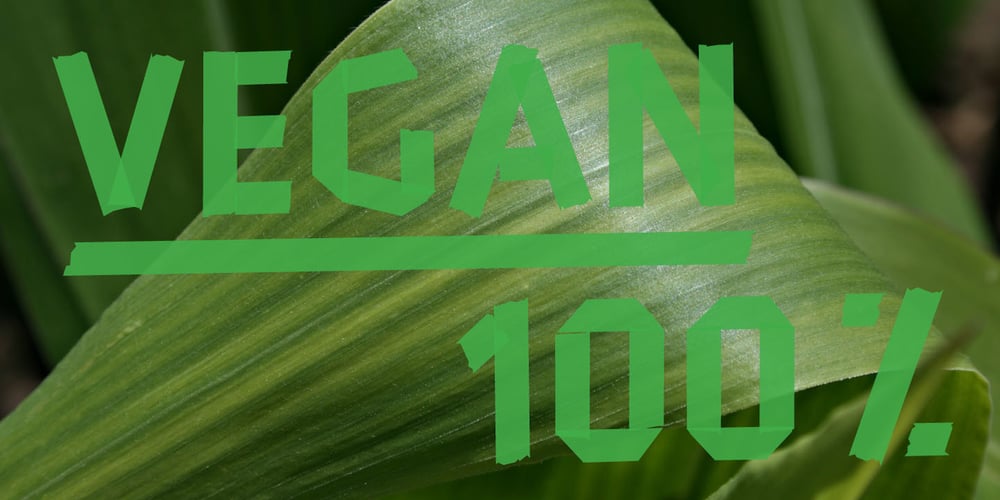
John Tapextra Font Family was designed by Georg John and published by Georg John. John Tapextra contains 3 styles and family package options. Roughly glued tape-font – with “Overlap”-Layer fonts for a more realistic tape look. Suitable when using big type-sizes. Includes an extended character set, variants for double basic latin letters (turn on opentype feature “Ligatures”), cyrillic, greek letters, some symbols and arrows.